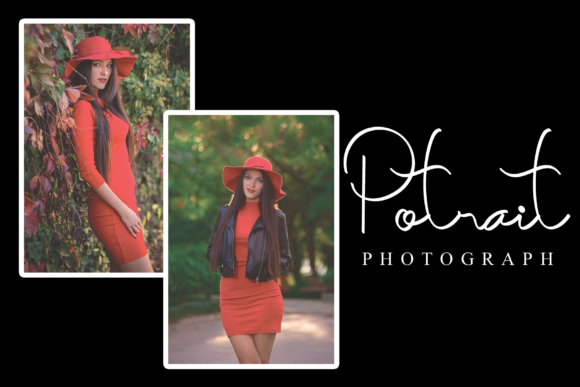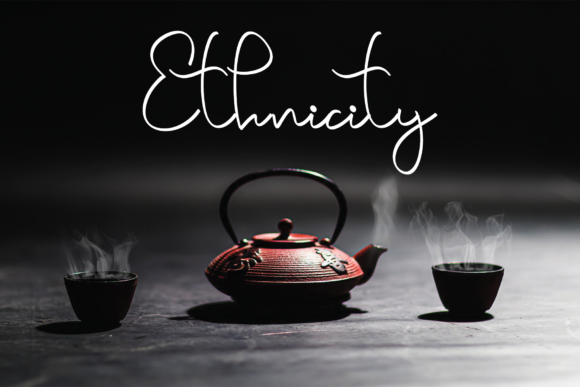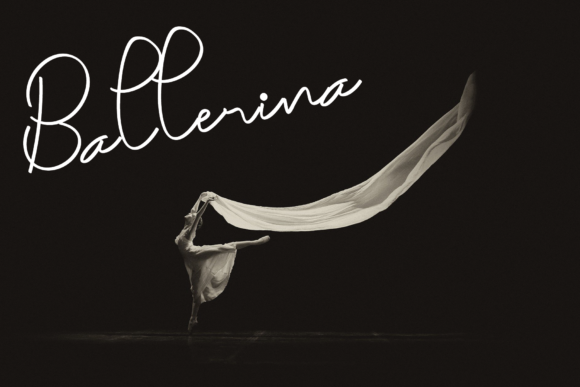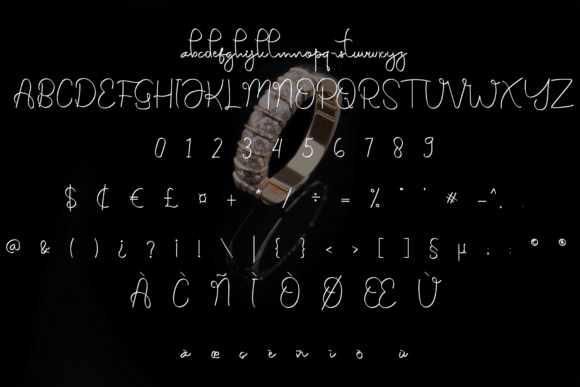
Introduction to Ryana Font
Have you ever found yourself in the midst of a creative project, staring at a blank page, desperately searching for the perfect design element to bring your vision to life? That’s exactly where the Ryana Font comes in – a high-quality, stylish script font that can elevate any creative project and make it truly unforgettable.
As a valuable addition to any designer’s toolkit, the Ryana Font offers a level of sophistication and elegance that’s hard to find in other fonts. Its neatly crafted details and transparent background make it a versatile design resource that can be used in a wide range of applications, from logos and branding to digital art and typography.
Key Features of Ryana Font
- Ryana Font is a high-quality design resource ideal for creative projects requiring a unique touch.
- It features a transparent background, allowing for seamless integration with various design elements.
- Ryana Font comes in a single style, with 300 DPI resolution, making it suitable for high-resolution print and digital applications.
- The font is designed to be versatile, making it perfect for use in logos, branding, and other creative projects.
Honest Review: Ryana Font
I recently stumbled upon the Ryana Font and was excited to give it a try. As a designer, I’m always on the lookout for high-quality design resources that can elevate my creative projects.
Overall, I think the Ryana Font is a solid addition to any designer’s toolkit. While it may not be perfect, it’s a great option for designers working on smaller projects or looking for a unique font to add some flair to their designs.
- Highly versatile
Ryana Font
The Ryana Font is a high-quality design resource perfect for creative projects. With its unique and elegant design, it’s ideal for various applications, from digital to print media.
Tips for Getting the Most Out of Ryana Font
For the best results, use the Ryana Font with a transparent background. This will allow you to easily overlay the font on top of other design elements.
The Ryana Font is ideal for creative projects, such as:
Can I use the Ryana Font with a transparent background?
Yes, the Ryana Font supports transparent backgrounds, making it ideal for use in graphic design, web design, and other creative projects. When using the font with a transparent background, make sure to use a design software that supports alpha channels or transparent backgrounds, such as Adobe Photoshop or Illustrator.